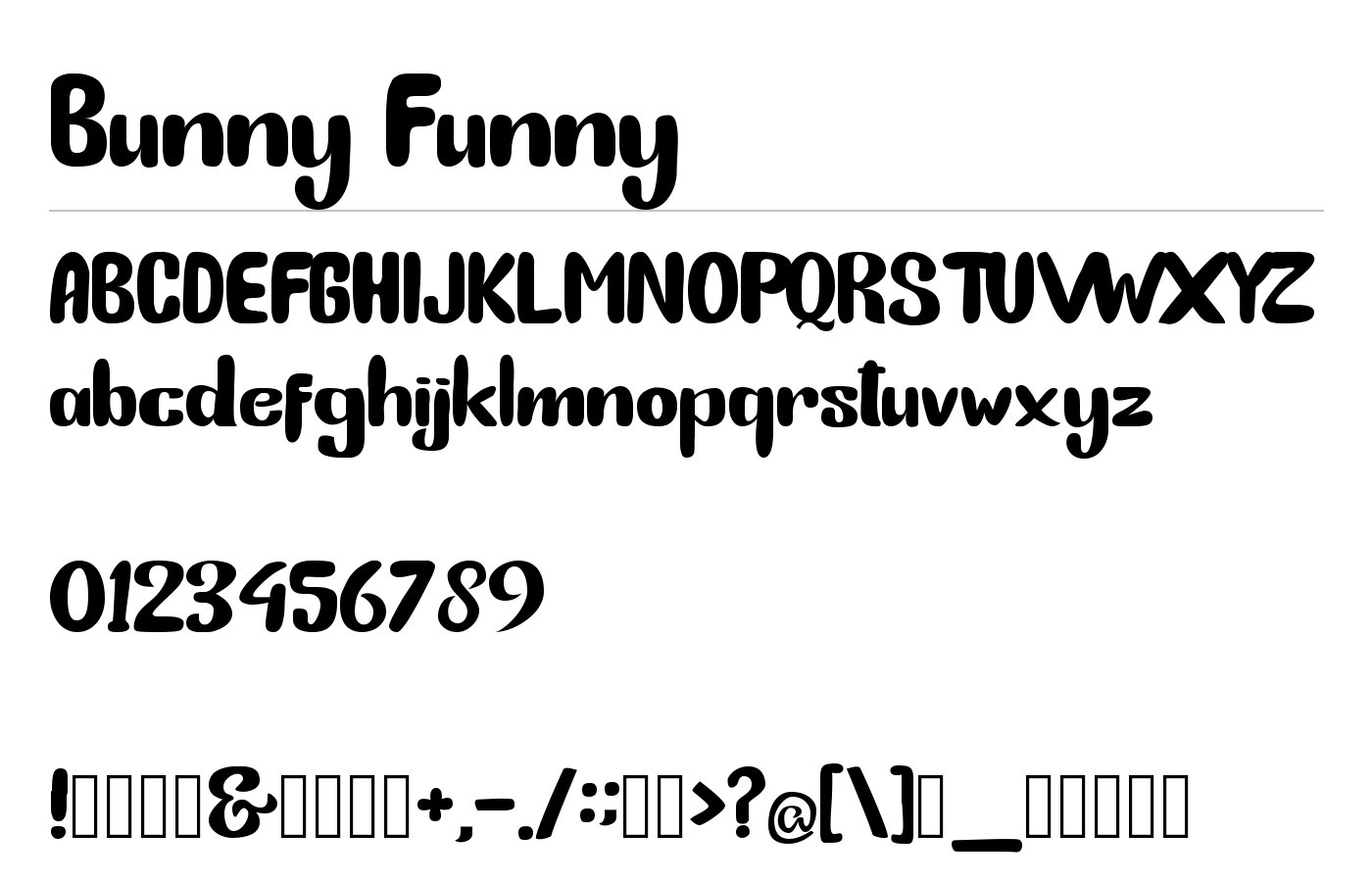
Bunny Funny is a playful, rounded sans serif font with a warm and friendly personality, featuring bold, smooth strokes and a moderate x-height that enhances readability. Its whimsical letterforms and lively curves make it ideal for creative, informal designs such as children’s books, playful branding, and fun packaging. This font works best in headlines and display text where its cheerful, approachable style can truly shine.
Bunny Funny Font
About Bunny Funny Font
| Font family | Bunny Funny Font |
| Designer | Nur Solikh |